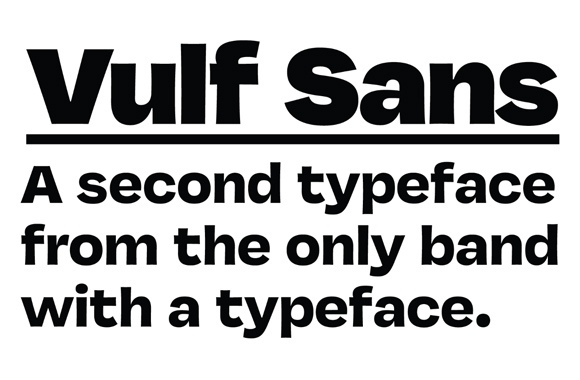
Vulf Sans Font
Vulf Sans Font is perfect for creative agencies, music industry branding, record labels, modern editorial design, artistic portfolios, contemporary magazines, indie culture materials, creative studio signage, alternative brand identities, cultural organizations, experimental design projects, and progressive corporate communications.
What makes Vulf Sans Font exciting is its distinctive character that perfectly captures the essence of contemporary creative culture through unconventional letterforms that challenge traditional typography norms. This remarkable typeface embodies the spirit of artistic rebellion and creative innovation, combining quirky personality with sophisticated craftsmanship that resonates with audiences seeking authenticity and creative expression. The font's unique proportions and alternative aesthetic create immediate recognition while maintaining the readability essential for professional creative applications. Its artistic personality makes it perfect for brands that want to communicate originality, creativity, and the transformative power of alternative thinking in competitive creative markets.
The Vulf Sans Font family includes light, regular, medium, and bold weights, featuring creative alternates, experimental ligatures, and artistic design elements. The character set incorporates unique symbols, expressive numerals, and alternative punctuation marks that enhance the font's creative character and provide designers with comprehensive artistic typography solutions for innovative brand expressions.
Whether you're developing creative brand identities, designing artistic marketing materials, or creating experimental communications, Vulf Sans Font Free Download provides the creative distinction your innovative projects require. This premium typeface excels in applications where artistic authenticity and creative differentiation are crucial for brand positioning and audience connection in competitive creative industries. The font's artistic qualities work magnificently across album covers, creative packaging, and digital applications, making it an essential tool for designers serving music and creative culture markets. Creative agencies and alternative brands choose this font for its ability to communicate artistic vision while maintaining professional credibility and market appeal. The comprehensive character support includes creative symbols and artistic glyphs, expanding its versatility for global creative applications and multilingual artistic communications. Professional designers appreciate its perfect balance of creative innovation and functional reliability, ensuring projects remain both artistically compelling and commercially effective. When you incorporate this exceptional typeface into your creative communications, you're selecting a typography solution that celebrates artistic rebellion and creative authenticity, ensuring your brand connects with creative professionals while maintaining the innovative credibility essential for success in competitive creative markets and artistic industries that value originality, creative expression, and alternative approaches to visual communication and brand identity development.